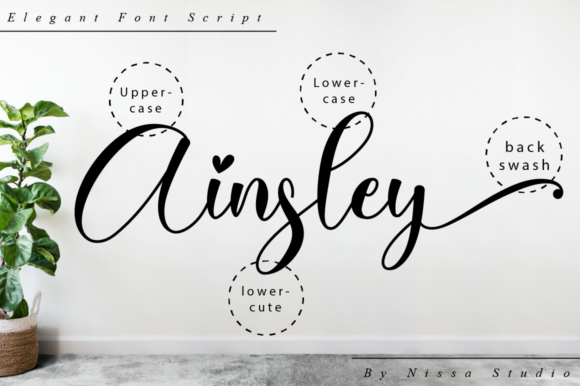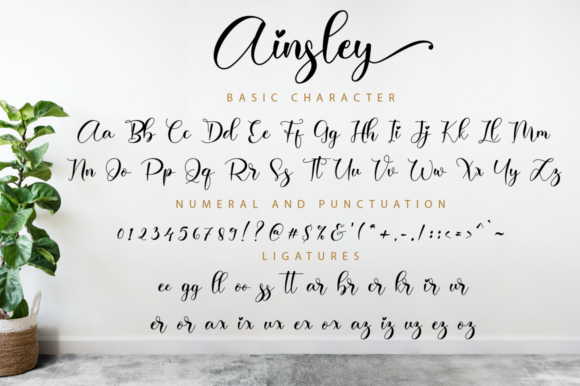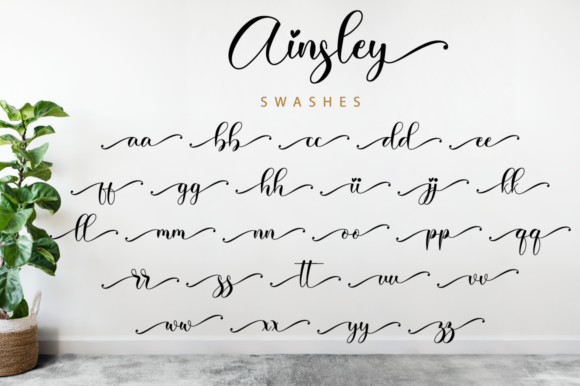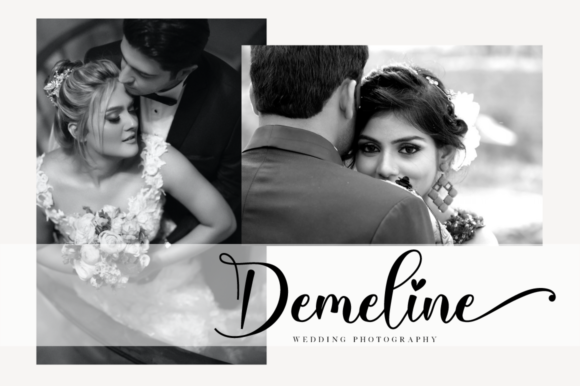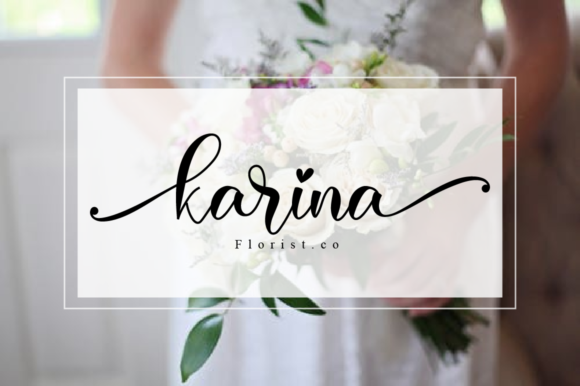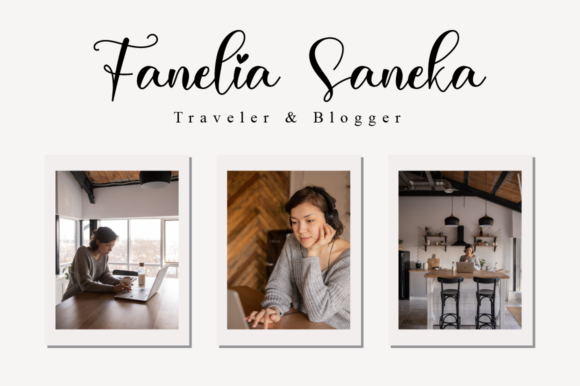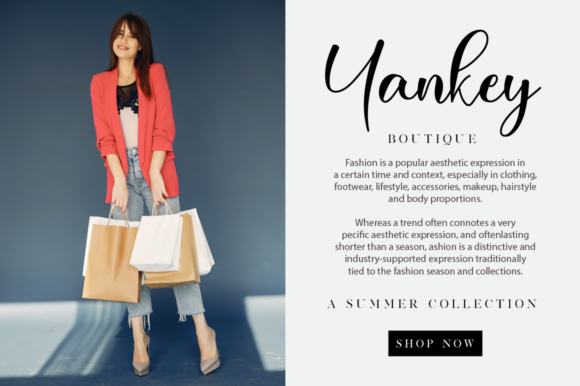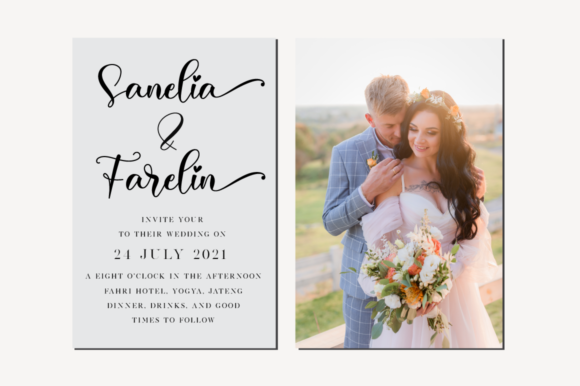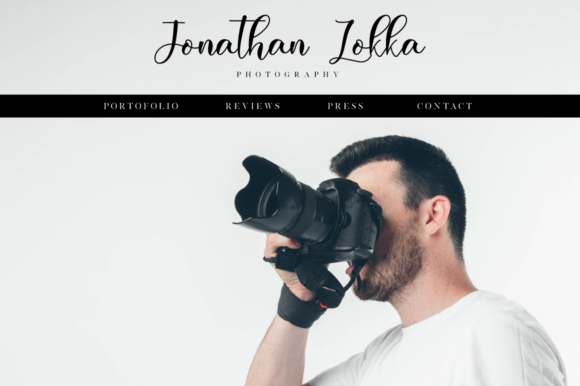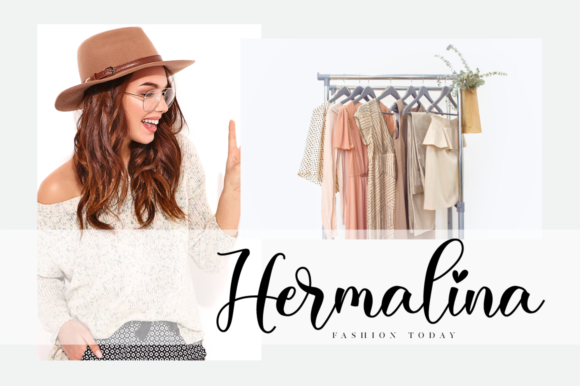
Ainsley Font
About Ainsley Font
Ainsley is a flowing and incredibly stylish handwritten font. It is PUA encoded which means you can access all of the glyphs and swashes with ease! It features a varying baseline, smooth lines, gorgeous glyphs and stunning alternates. Fall in love with its incredibly versatile style and use it to create spectacular designs!